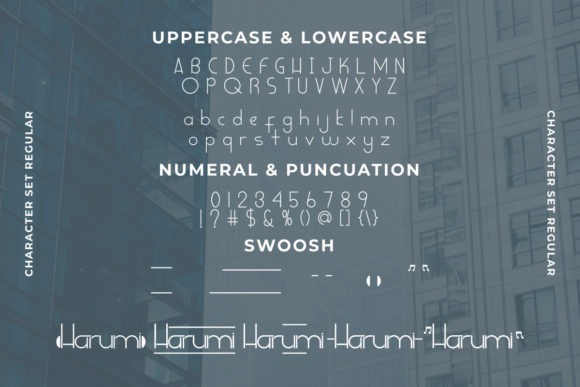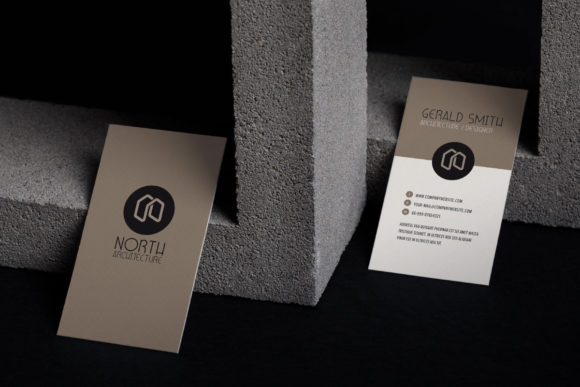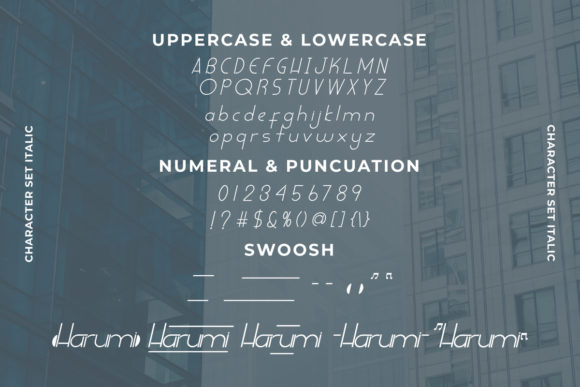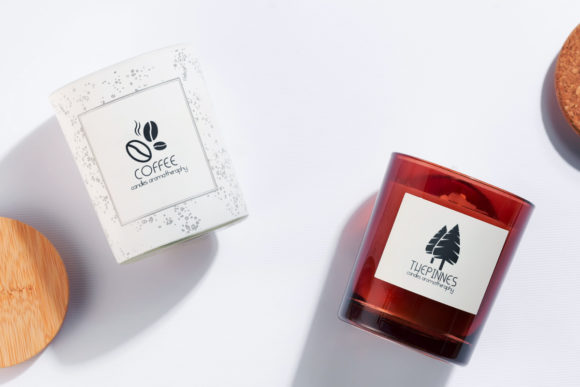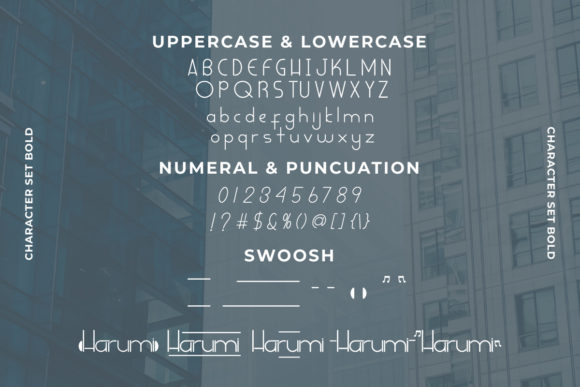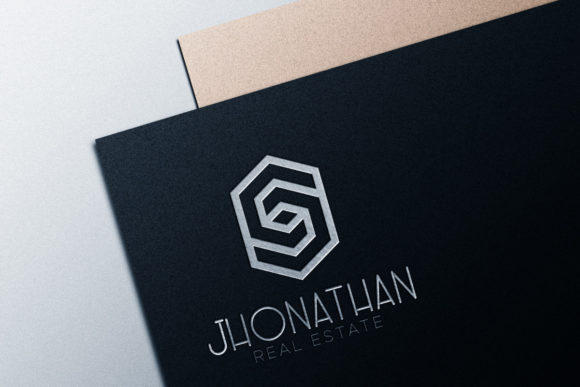
Introduction to Harumi Font
Harumi Font is a beautiful sans serif font with unique characters inspired by musicians that will bring a flawless and modern feel to any design.
It will add elegance to many creative projects including branding, posters, titles, promotions, games, technology, events, musicians, artists, or any other modern projects that require a sophisticated touch This font is PUA encoded, which means you can access all of the glyphs and swashes with ease.
Key Features of Harumi Font